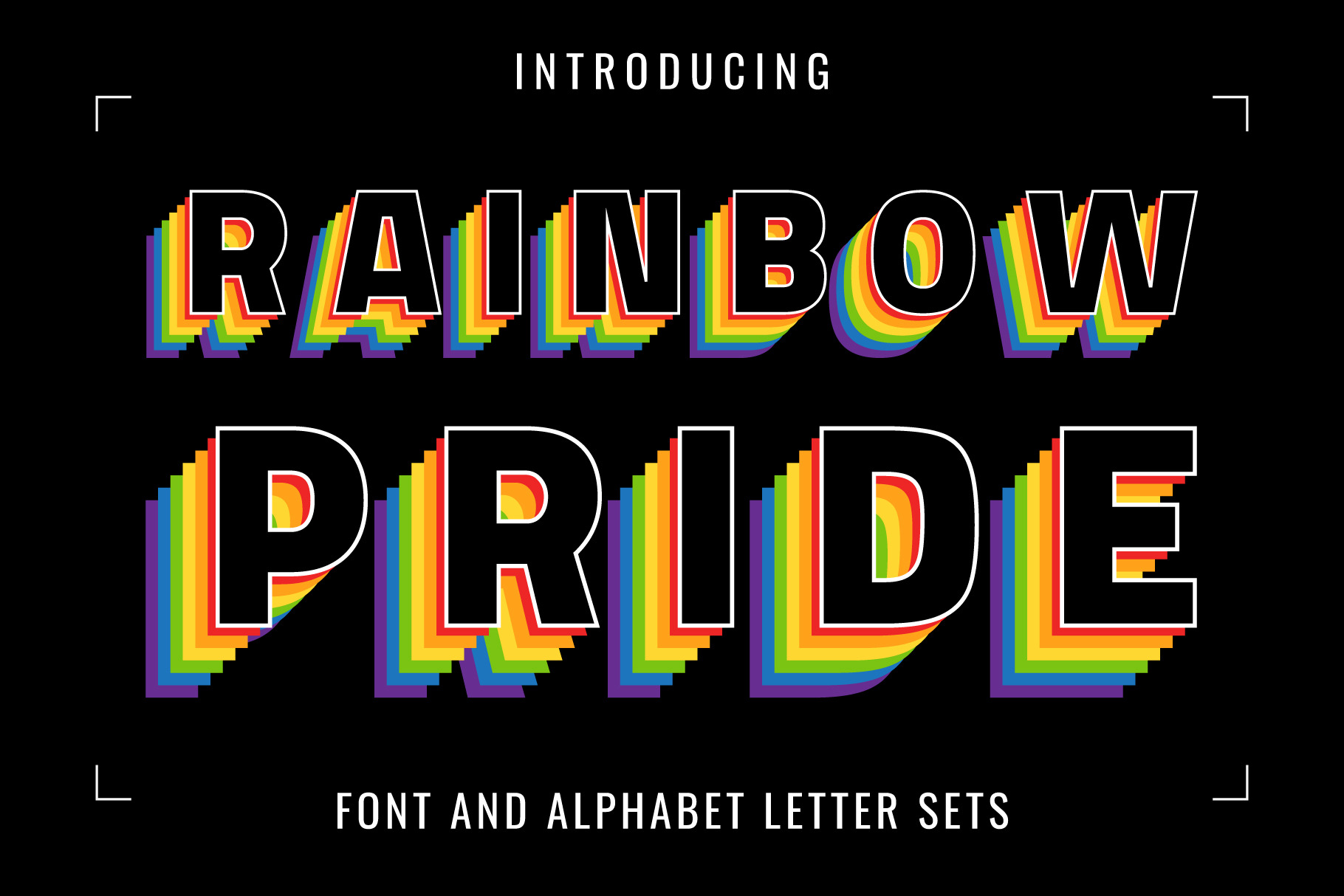
Rainbow Pride Color font
Introducing “Rainbow Pride Color Font” – inspired by the design language of the iconic Rainbow Flag for you to use in your upcoming Pride Month-themed projects. It’s ideal for anything ranging from t-shirts, book designs, restaurant menus, blog writing, and greeting cards to stickers, or anything that needs a casual touch. Fall in love with its incredibly cool style, and use it to create lovely designs!
FEATURE:
- This entire font is capitalized.
- Only the English language is available.
- Letters: A B C D E F G H I J K L M N O P Q R S T U V W X Y Z.
- Numbers: 0 1 2 3 4 5 6 7 8 9.
- Excluding punctuation.